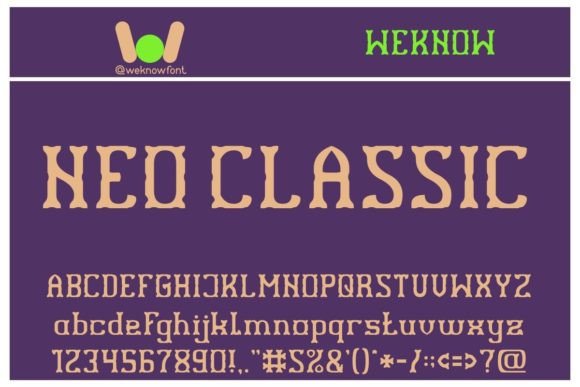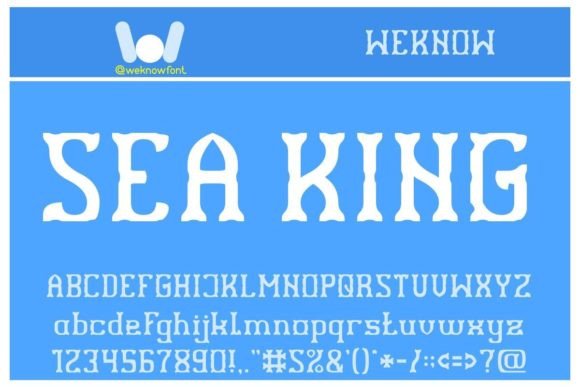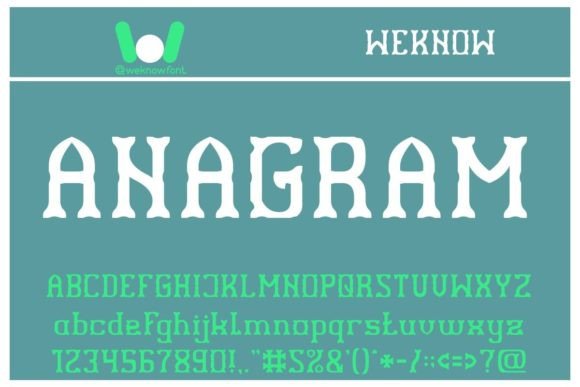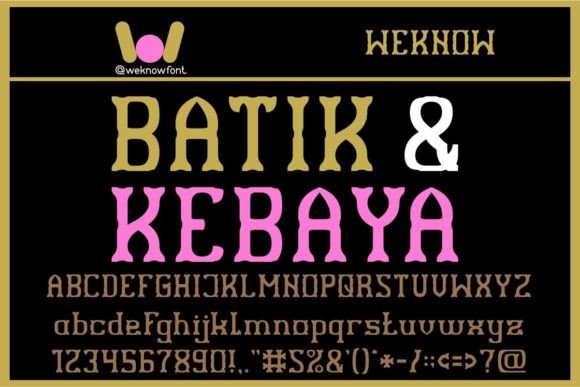
Dragon Forces Font: Unleash the Power of Unique Typography
Dragon Forces is a cool and unique display font that can elevate any design project to new heights. Its bold and striking appearance makes it an excellent addition to any typeface collection, regardless of the topic or theme. In this article, we’ll explore the features and benefits of Dragon Forces Font, and why it’s a must-have for designers and crafters looking to add a touch of excitement to their creations.
The Power of Display Fonts
Display fonts are a crucial element in any design project, as they can make or break the visual appeal of a piece. A well-chosen display font can grab attention, convey emotion, and add personality to a design. Dragon Forces Font is a prime example of a display font that can do just that. Its unique and bold design makes it perfect for headlines, titles, and other attention-grabbing elements.
What Makes Dragon Forces Font Stand Out
So, what sets Dragon Forces Font apart from other display fonts? Here are a few key features that make it a standout:
- Unique Design: Dragon Forces Font boasts a one-of-a-kind design that’s sure to turn heads. Its bold and striking appearance makes it perfect for designs that need a bit of edge.
- Versatility: Despite its bold design, Dragon Forces Font is surprisingly versatile. It can be used for a wide range of design projects, from posters and flyers to logos and branding materials.
- Easy to Read: Despite its bold appearance, Dragon Forces Font is easy to read, even at smaller sizes. This makes it perfect for designs that need to convey a message quickly and effectively.
Dragon Forces Font offers a range of benefits for designers and crafters, including:
- Instant Recognition: With Dragon Forces Font, you can create designs that grab attention and make a lasting impression.
- Flexibility: Dragon Forces Font can be used for a wide range of design projects, from digital designs to print materials.
- Time-Saving: With Dragon Forces Font, you can create professional-looking designs in no time. Its bold and striking appearance means you can create attention-grabbing designs quickly and easily.
How to Use Dragon Forces Font
So, how can you use Dragon Forces Font in your designs? Here are a few ideas to get you started:
- Headlines and Titles: Use Dragon Forces Font to create bold and attention-grabbing headlines and titles.
- Logos and Branding: Dragon Forces Font is perfect for logos and branding materials that need a bit of edge.
- Posters and Flyers: Use Dragon Forces Font to create eye-catching posters and flyers that grab attention.
In conclusion, Dragon Forces Font is a cool and unique display font that’s perfect for designers and crafters looking to add a touch of excitement to their creations. Its bold and striking appearance makes it perfect for headlines, titles, and other attention-grabbing elements. With its versatility, ease of use, and range of benefits, Dragon Forces Font is a must-have for any design project.